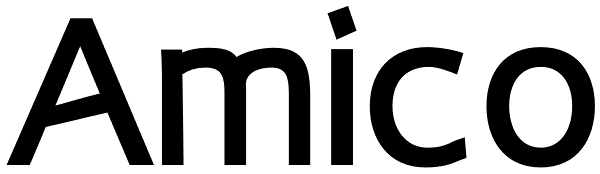
Amico
This is a new barely modulated, slightly narrow, sans serif font family. It has eight styles: thin, thin italic, regular, italic, bold, bold italic, black, & black italic grouped into two 4-font families: Amico Thin with the Bold; and Amico with the...